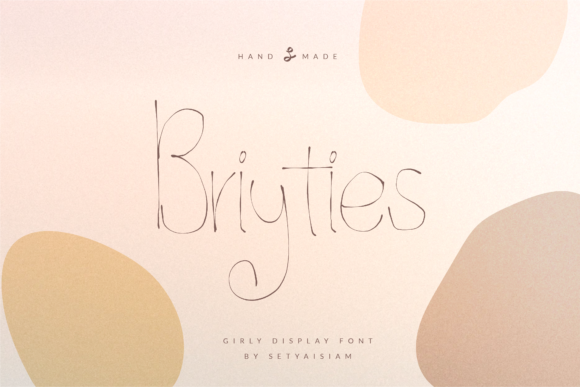
Get ready to captivate your audience with Briyties Font, the captivating script font that's perfect for adding a touch of elegance and charm to your designs. With its graceful curves and playful letterforms, Briyties Font is a visual masterpiece that will make your words leap off the page.
Crafted with love by the renowned type designer setyaisiam, Briyties Font is a true work of art that combines the beauty of traditional calligraphy with the convenience of digital typography. Its unique brushstrokes add a sense of authenticity and personality, evoking the warmth and intimacy of a handwritten letter.
Whether you're a designer creating stunning logos, a blogger crafting engaging content, or a business owner looking to make a lasting impression, Briyties Font has got you covered. Its versatility knows no bounds, allowing you to express your creativity in countless ways.
So why settle for ordinary fonts when you can have extraordinary? Download Briyties Font today and embark on a typographic journey that will ignite your imagination and take your designs to new heights. Let the beauty of Briyties Font speak volumes, capturing hearts and leaving an unforgettable mark on your audience.